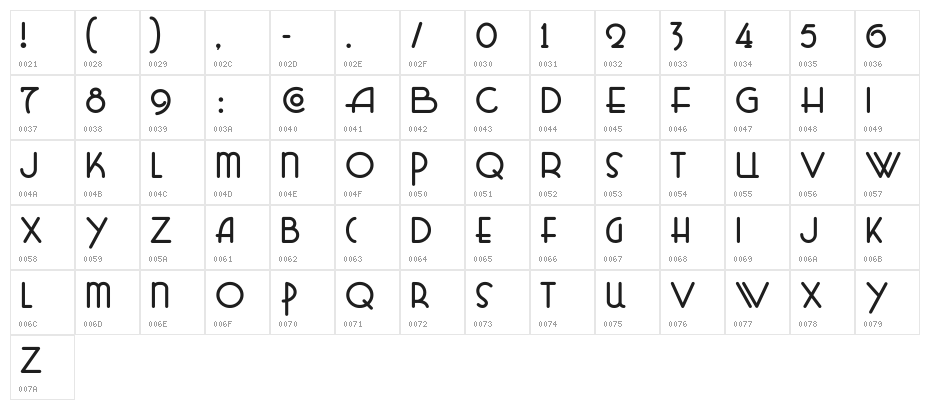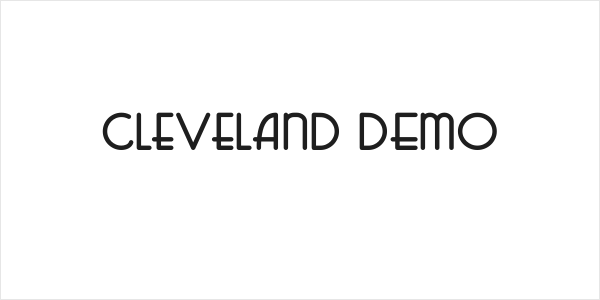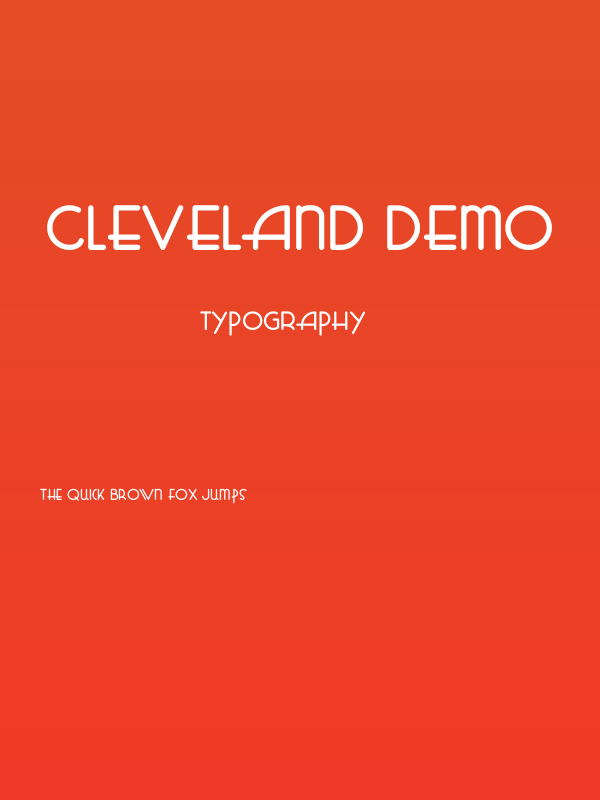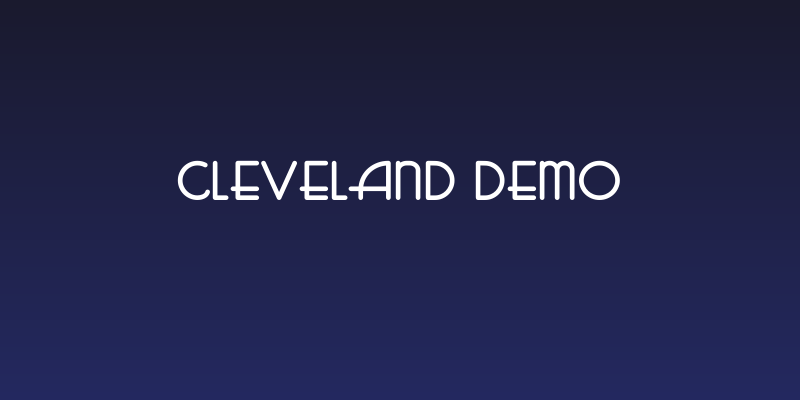
Cleveland DEMO Font
Cleveland DEMO Description
This font features a modern, rounded style with a playful and approachable appearance. The characters are evenly weighted, with smooth curves and a consistent stroke width that gives it a clean and friendly look. The uppercase and lowercase letters maintain a uniform height, contributing to its balanced and harmonious design. The numerals and special characters are designed to match the overall aesthetic, ensuring visual coherence across all elements. This font is versatile, suitable for both digital and print media, and can be used to convey a sense of warmth and accessibility.
| Use Case | Headlines, Logos, Digital interfaces |
| Proposed Projects | Ideal for branding, children's books, casual invitations, and digital interfaces. |